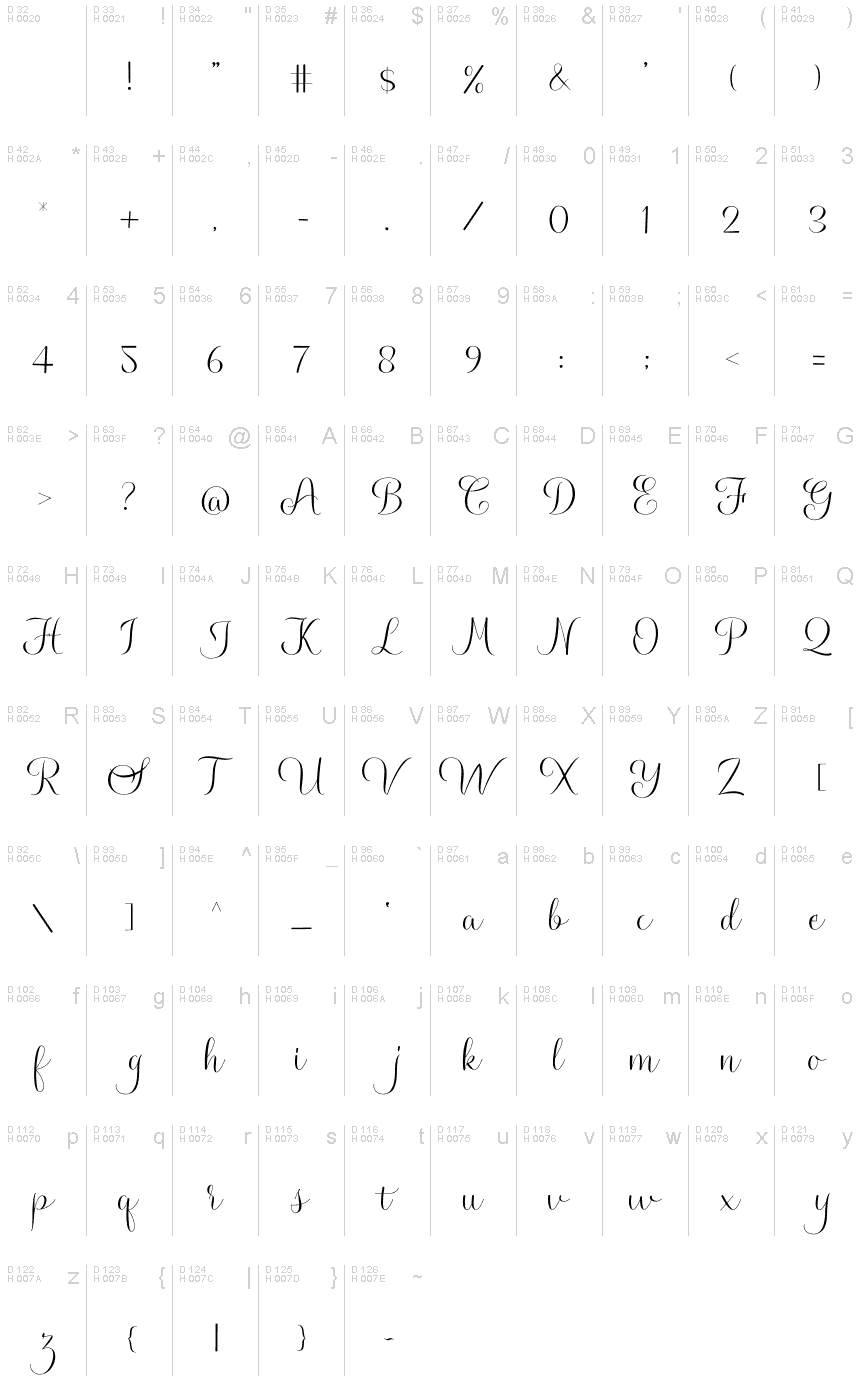
shifabella
Shifabella, the latest creation from Sunset Gallery, is a semi-light calligraphy font that exudes elegance and sophistication. This typeface is perfect for projects that require a touch of femininity and grace such as wedding invitations, elegant branding designs, or luxury packaging. The fluid strokes and ornate details of Shifabella make it a standout choice for any project where attention to detail is key. Its versatility allows it to be used for both titles and body text alike. With Shifabella in your design arsenal, you can elevate any project to new heights of beauty and refinement.
This charming font will turn any creative idea into a standout.